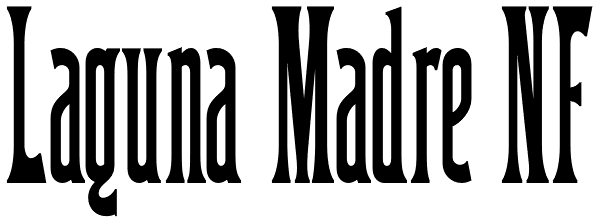
Laguna Madre NF
Another addition to the Whiz-Bang Wood Type series is this ultra-condensed font, well suited for very large headlines. Named for the body of water which separates Padre Island from the mainland of Texas. Both versions of this font contain the...